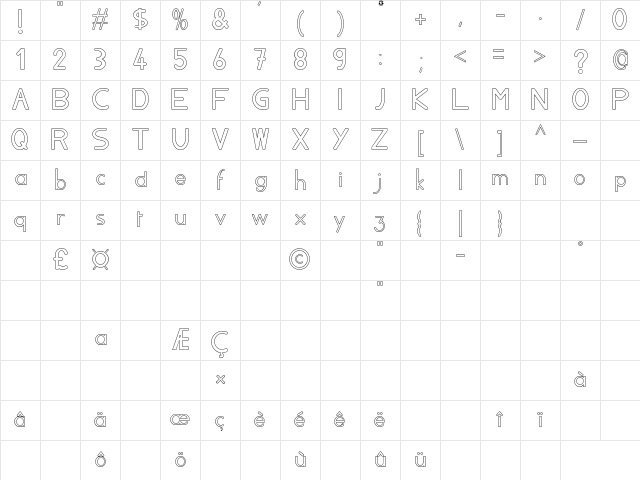
AylavideCS Regular Free Font
AylavideCS Regular
Designer: Claude Soulayrac
Design Context for AylavideCS
AylavideCS is a composed and adaptable typeface that performs quietly and consistently across a wide range of design contexts.